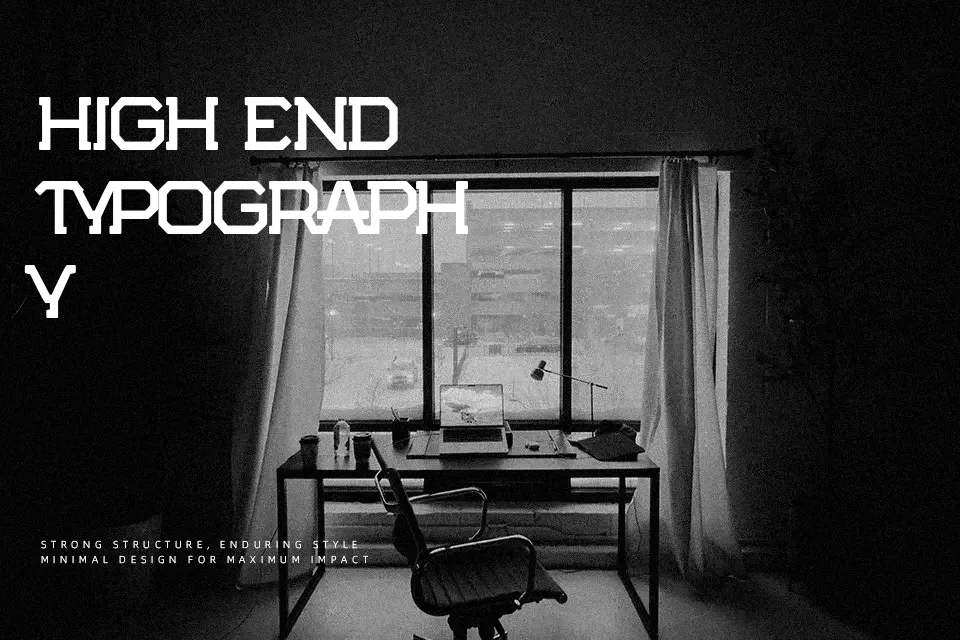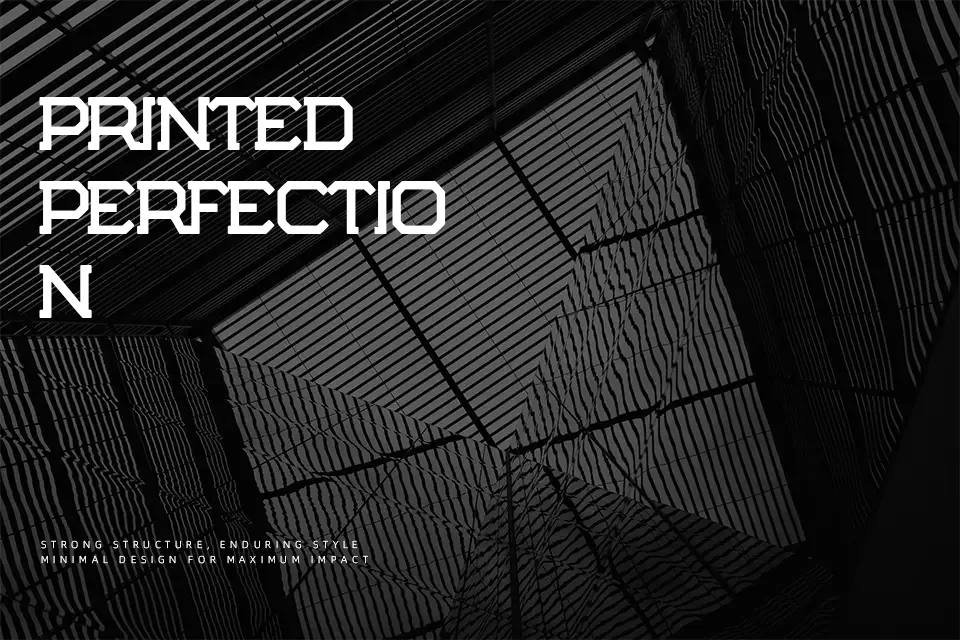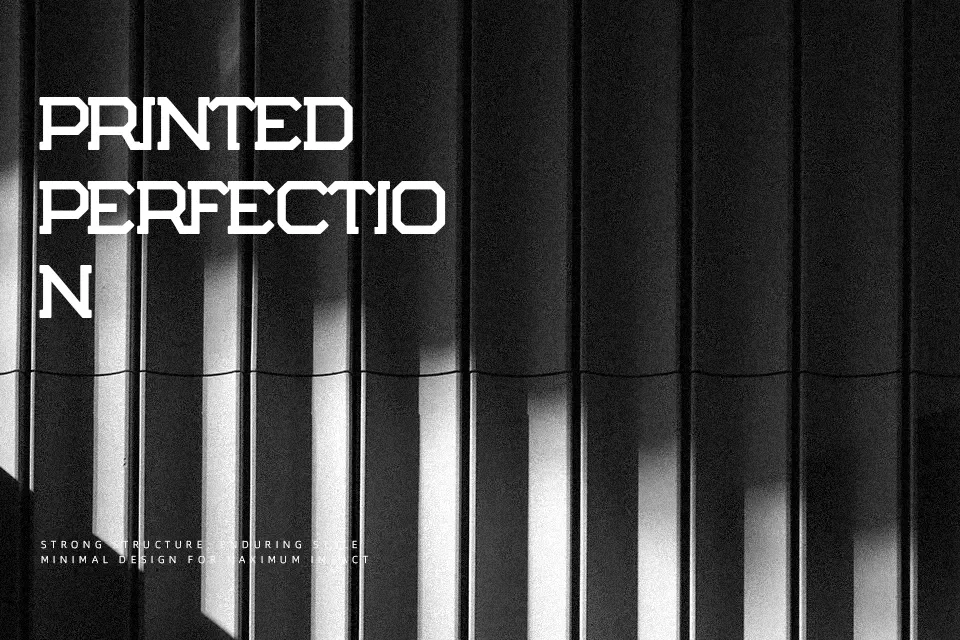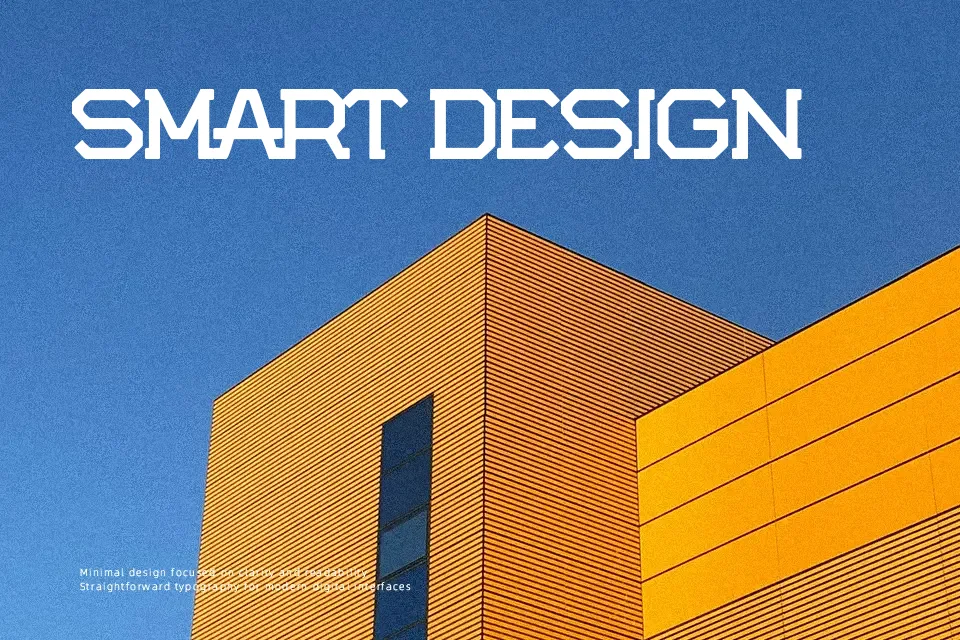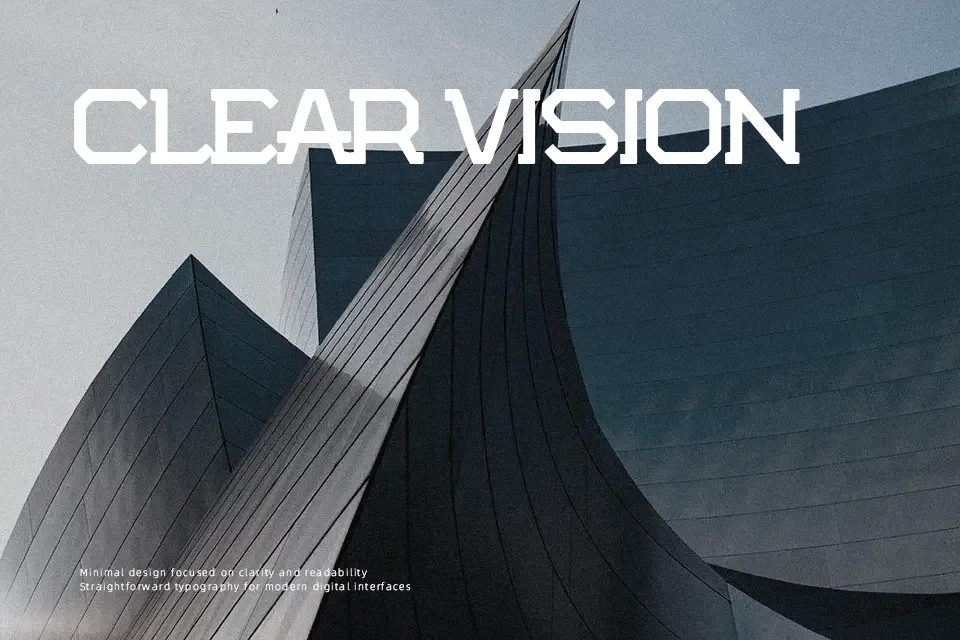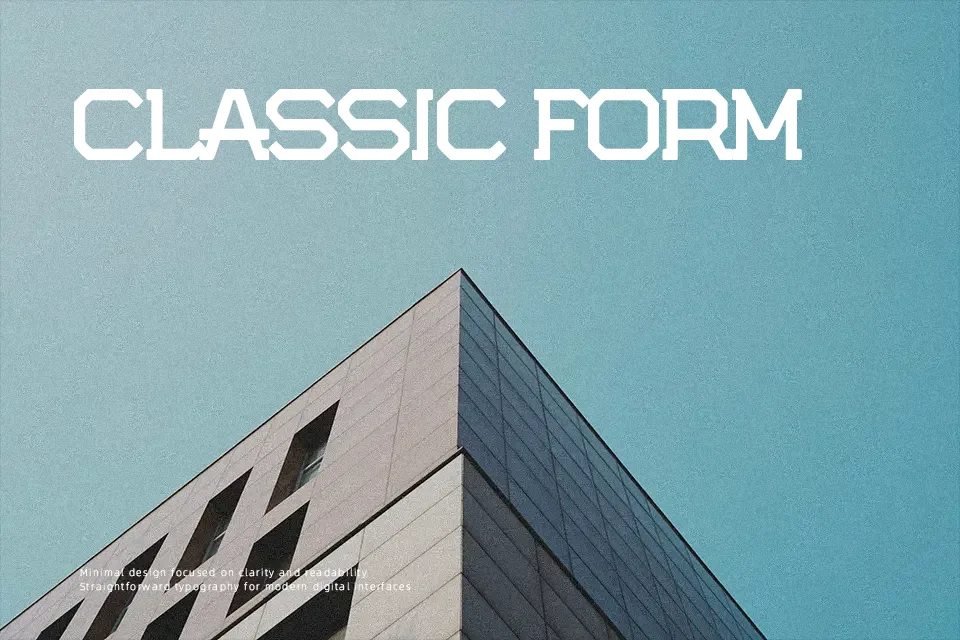
Potorro Angular Font
Potorro Angular Font immediately establishes a dominant visual rhythm through its rigid, straight strokes and distinctly sharp corners. The letterforms are constructed with heavy proportions and blocky geometry, eliminating soft curves in favor of an aggressive, structured aesthetic. Because the spacing is relatively compact, the dense forms create a solid block of text when set tightly. The bold strokes improve visibility in prominent posters and aggressive branding campaigns, making it a reliable choice for impactful headers. However, the decorative, angular nature of the characters becomes less effective at smaller sizes. This typeface performs best when displayed at larger scales, as dense forms reduce comfort during extended reading and small captions quickly lose clarity.
streetwear apparel graphics
bold packaging labels
edgy magazine headlines
corporate legal documents
Perfect for branding, headline, and packaging, with a bold and decorative style.